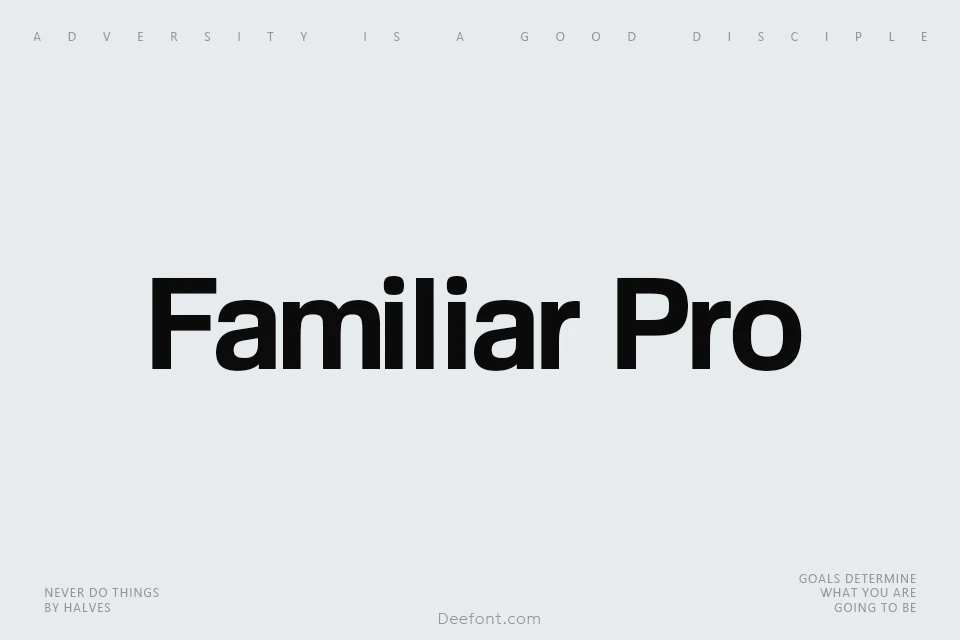
Familiar Pro Font
Familiar Pro is a versatile sans-serif font family inspired by the German-Swiss grotesk tradition, featuring super-elliptical curves, rounded dots, and gently curved diagonals. Its friendly yet professional appearance suits diverse design applications, including branding, logos, web design, and editorial content. The font family offers extensive multilingual support covering 65 languages, optimized oblique styles, and balanced proportions. Familiar Pro combines readability with a modern aesthetic, making it ideal for designers seeking a clean, approachable typeface with subtle personality for both digital and print media projects.
This family was inspired by a Type Battle over at Typophile: How would you design a font metrically compatible with Helvetica, but better than Arial? Working with preset letter widths was an interesting constraint, both a relief and a limitation at the same time.